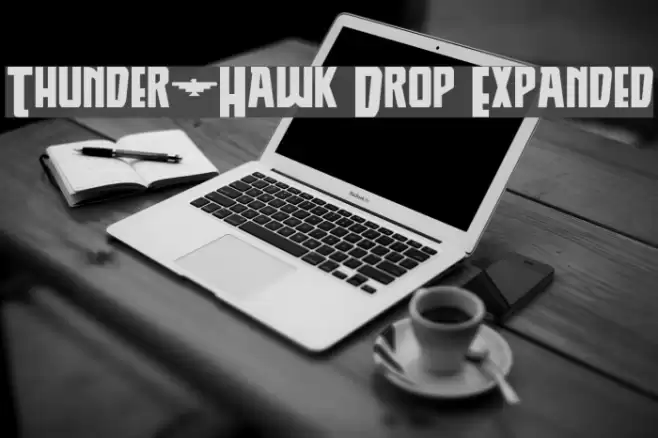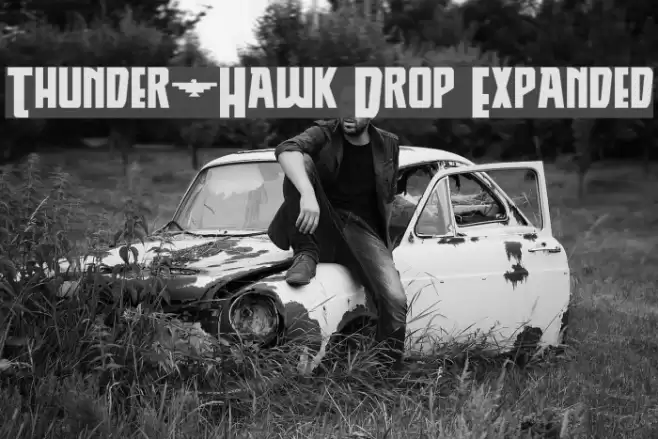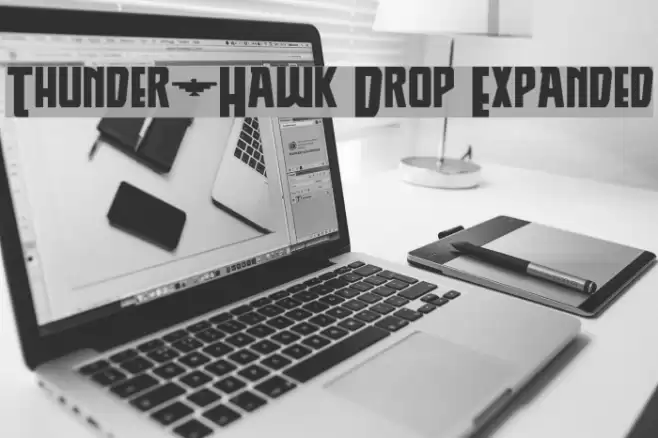
Thunder-Hawk Drop Expanded Font
Thunder-Hawk Drop Expanded Description
This font features a bold and striking design with a distinctly modern and geometric aesthetic. The characters are blocky and angular, with sharp edges and a strong presence. The uppercase letters are particularly prominent, showcasing a uniform height and width that creates a cohesive look. The numerals and special characters maintain the same bold style, ensuring consistency across all elements. This font is ideal for making a statement, with its expanded width and high impact design that commands attention.
A bold, geometric font with an expanded width and strong presence from Uncategorized fonts.
- Proposed Projects: Ideal for branding, posters, headlines, and any project requiring a bold statement.